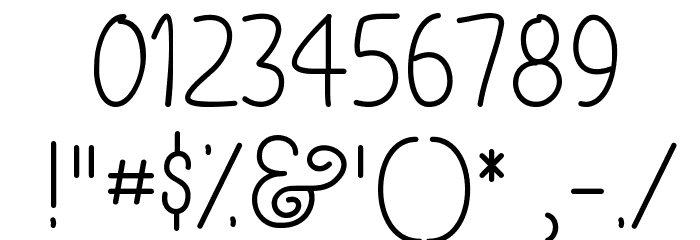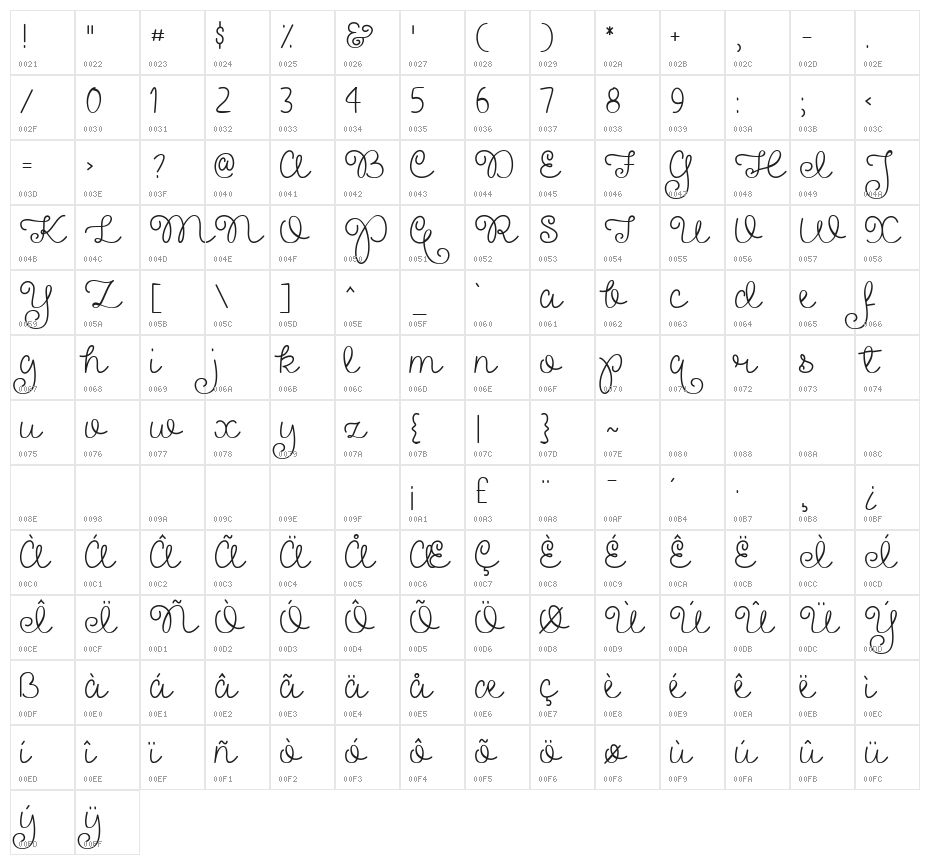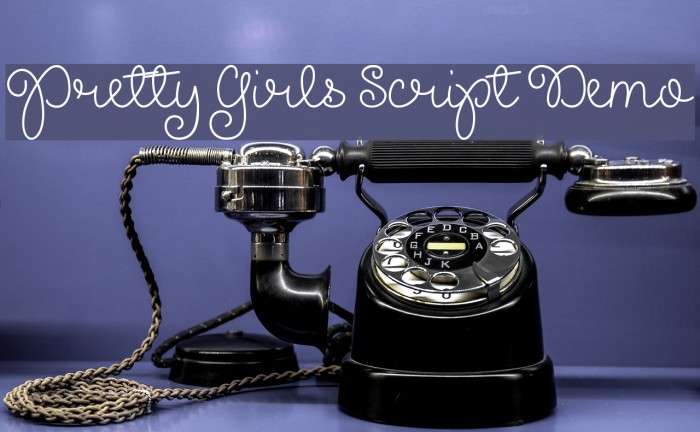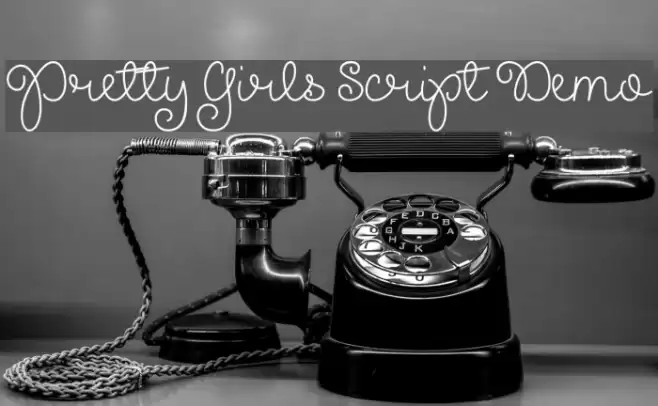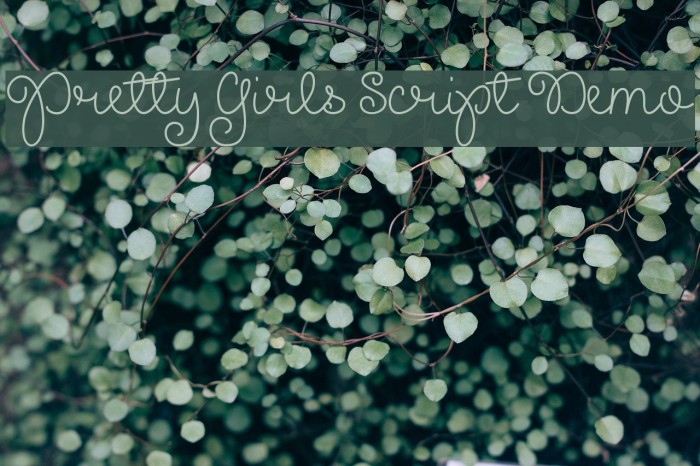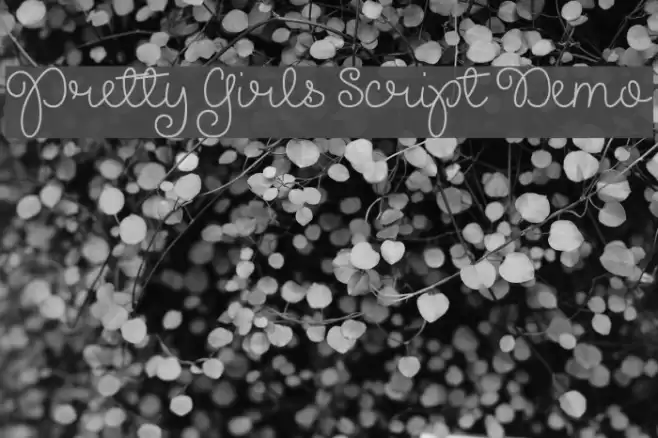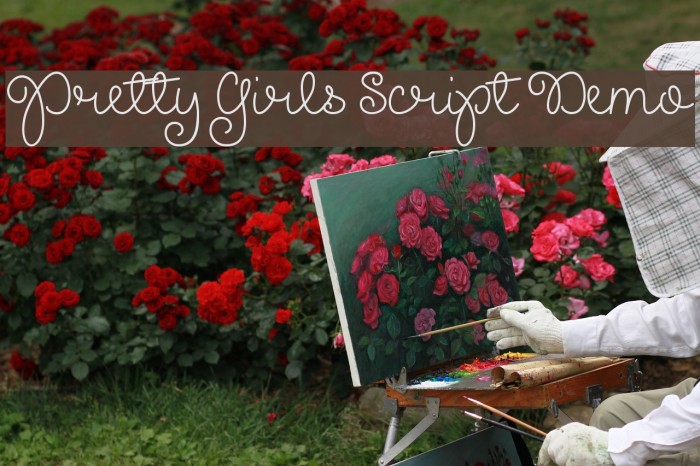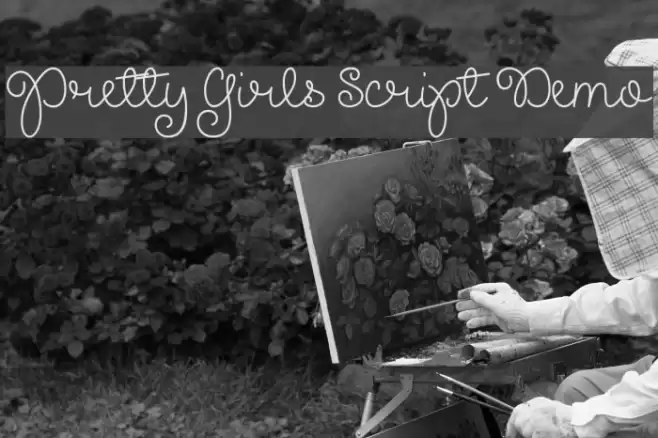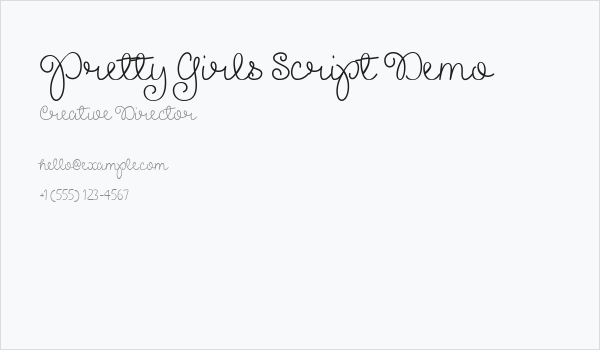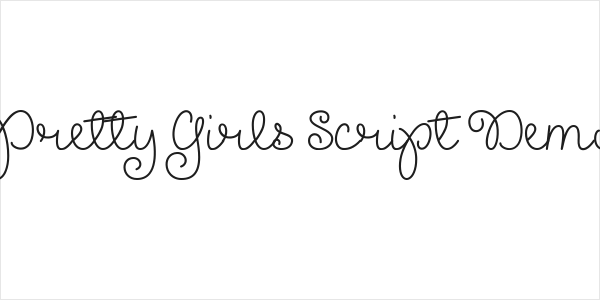
Pretty Girls Script Demo Font
Pretty Girls Script Demo Description
This font is a charming and whimsical script style, characterized by its flowing, cursive letters that exude a playful and elegant vibe. The uppercase letters feature intricate loops and swirls, adding a touch of sophistication and flair. The lowercase letters maintain a consistent, smooth flow, enhancing readability while retaining the font's decorative nature. Numbers and special characters are designed with the same attention to detail, ensuring a cohesive look across all elements. The overall appearance is both delicate and lively, making it suitable for projects that require a personal and artistic touch.
| Use Case | Logos, Invitations, Personal stationery |
| Proposed Projects | Ideal for wedding invitations, greeting cards, branding, and personal stationery. |